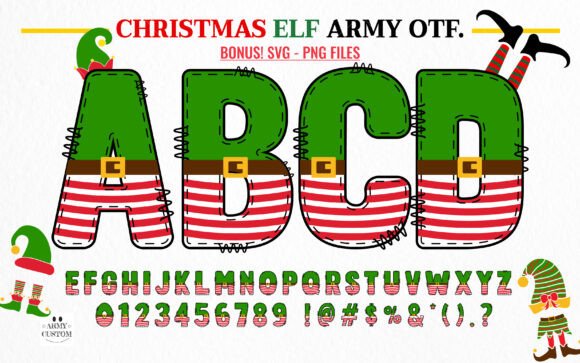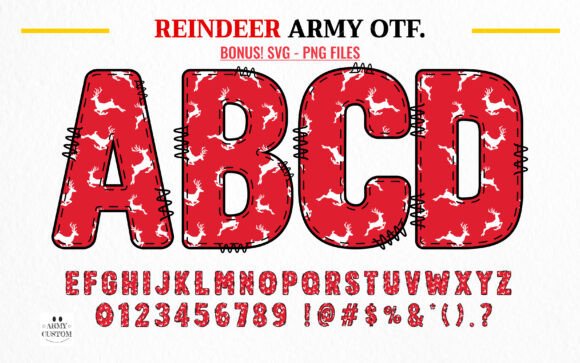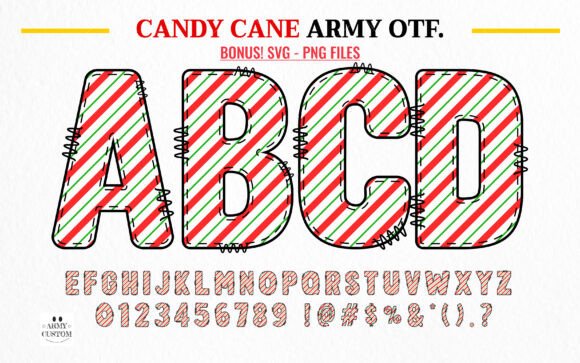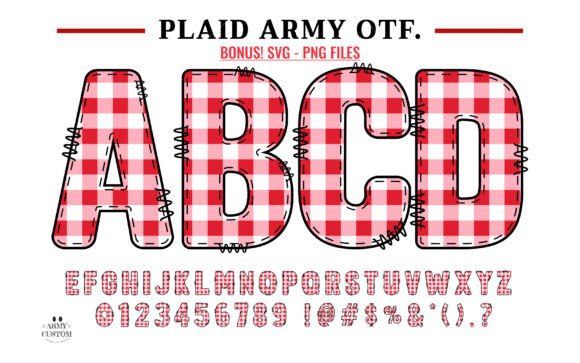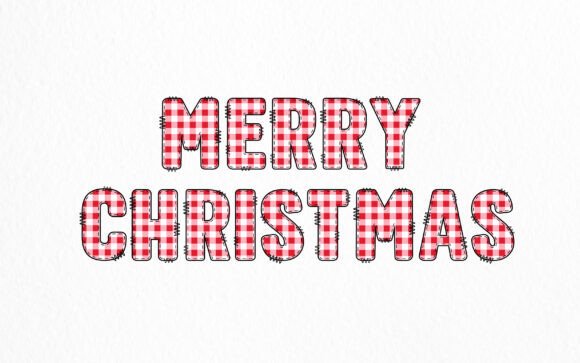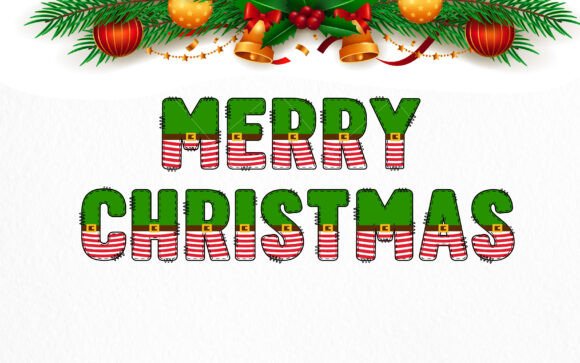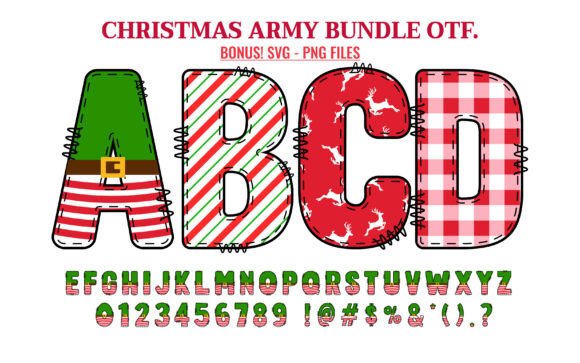
Introducing the Christmas Army Bundle Font: Elevate Your Festive Projects
The holiday season is upon us, and with it comes the need for festive and fun designs that capture the spirit of Christmas. As a designer or crafter, you’re likely on the lookout for the perfect font to add a touch of whimsy and merriment to your projects. Look no further than the Christmas Army Bundle Font, a delightful and playful font that’s sure to become a staple in your holiday design toolkit.
A Font that’s Full of Whimsy and Cheer
The Christmas Army Bundle Font is a jovial and charming font that’s inspired by the adorable antics of Santa’s helpers. Its playful style makes it an ideal choice for creating vibrant holiday decorations, adding a dash of merriment to any design project, or simply spreading some festive cheer. With this font, every letter spelled out becomes a joyous celebration, perfect for getting you and your audience in the holiday spirit.
Whether you’re a professional designer or a crafter looking to add a personal touch to your holiday projects, the Christmas Army Bundle Font is the perfect choice. Its versatility and playfulness make it suitable for a wide range of applications, from:
• Holiday greeting cards and invitations
• Festive decorations and signage
• Digital and print-based marketing materials
• Craft projects, such as scrapbooking and DIY gifts
What Sets the Christmas Army Bundle Font Apart
So, what makes the Christmas Army Bundle Font so special? Here are just a few features that set it apart from other holiday fonts:
• Unique and playful style: The Christmas Army Bundle Font has a one-of-a-kind design that’s sure to grab attention and spread holiday cheer.
• High-quality and versatile: This font is perfect for both digital and print applications, and can be used for a wide range of projects.
Tips for Using the Christmas Army Bundle Font
To get the most out of the Christmas Army Bundle Font, here are a few tips to keep in mind:
• Experiment with different colors and textures: The Christmas Army Bundle Font looks great in a variety of colors and textures, so don’t be afraid to get creative and try out different combinations.
• Pair it with other festive fonts: Combine the Christmas Army Bundle Font with other holiday fonts to create a unique and eye-catching design.
• Use it to add a personal touch: The Christmas Army Bundle Font is perfect for adding a personal touch to your holiday projects, whether you’re creating gifts for friends and family or designing marketing materials for your business.
Get Ready to Elevate Your Festive Projects
The Christmas Army Bundle Font is a must-have for any designer or crafter looking to add a touch of holiday magic to their projects. Its playful and whimsical style makes it perfect for a wide range of applications, from holiday decorations to social media graphics. With its high-quality design and ease of use, this font is sure to become a staple in your holiday design toolkit. So why wait? Download the Christmas Army Bundle Font today and start creating festive projects that will delight and inspire.